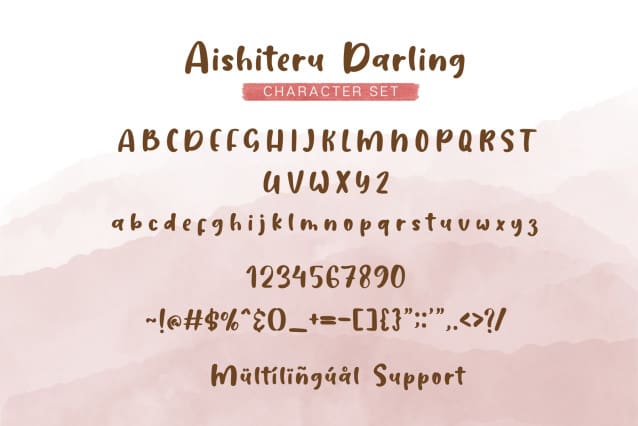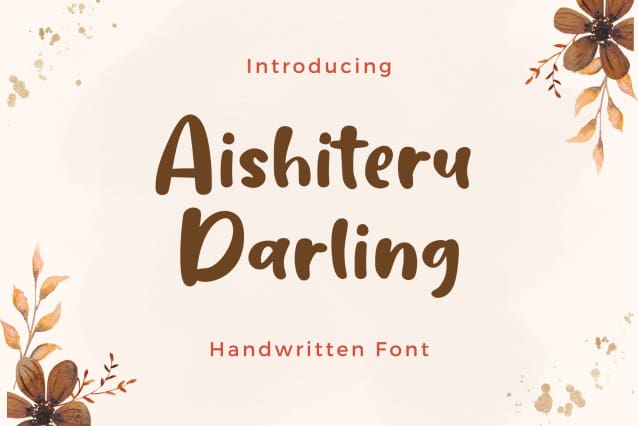
Aishiteru Darling Font
Aishiteru Darling – Handwritten Font, this font Is perfect for product packaging, product designs, label, photography, watermark, special events, or anything.